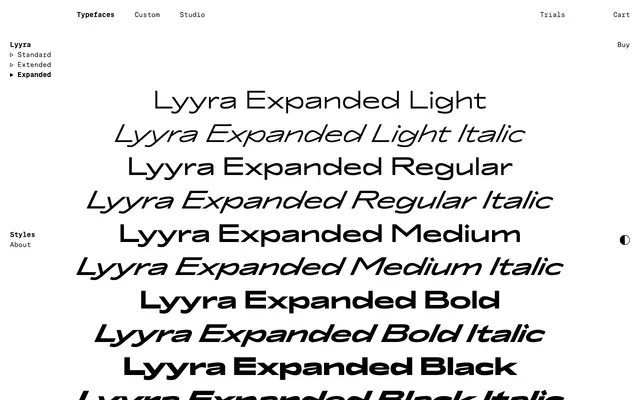
Lyyra Expanded
Lyyra Expanded specimen from Schick Toikka
The expanded cut of Lyyra: a decadent five-weight expressive sans with italics, taking the family's diagonality to extremes for display use.
Lyyra Expanded is the widest cut in the Lyyra system. The foundry describe it as 'downright decadent', taking the family's diagonal counters and bloomed petals to extremes for powerful display work. Five weights from Light to Black with matching italics keep the cut workable across hierarchy, and it pairs naturally with Lyyra Standard and Lyyra Extended. Default diamond dots can be swapped for tamer round alternates, and the OpenType feature set covers oldstyle, tabular and scientific figures alongside fractions.
The widest cut in the Lyyra system; the foundry describe it as 'downright decadent', taking the family's diagonality to extremes.